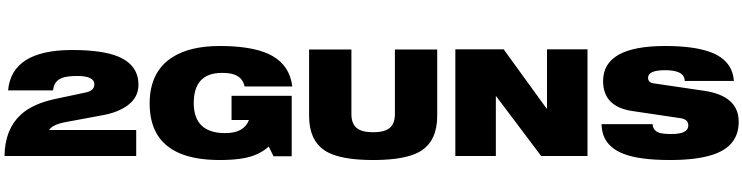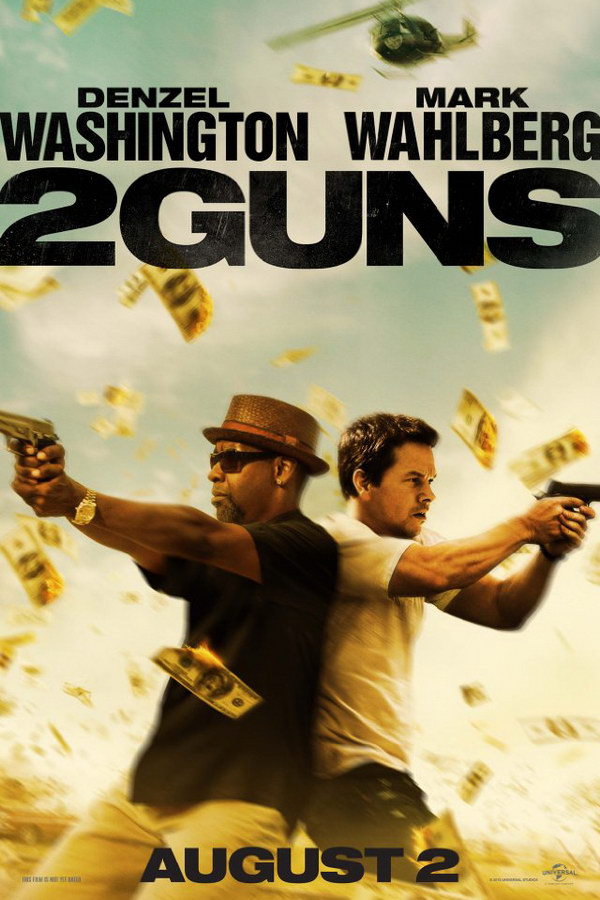
2 Guns Font
Action2 Guns is a 2013 American buddy cop action comedy film directed by Baltasar Kormákur. In the movie, Robert and Michael are undercover agents tasked with uncovering Manny Greco, a drug lord.
The movie title 2 Guns in the poster most likely uses Helvetica Neue Pro Ext Black. Helvetica was created by Max Miedinger in 1957 and now has 51 weights. More details about the typeface can be found here.